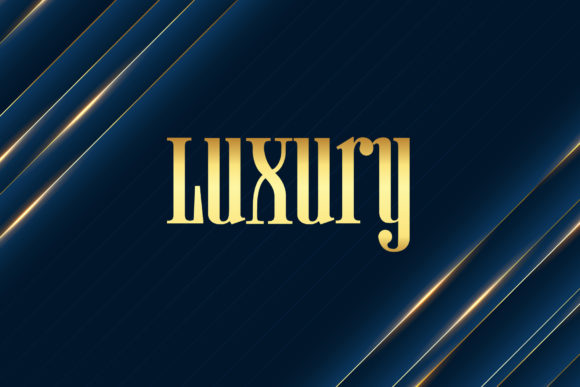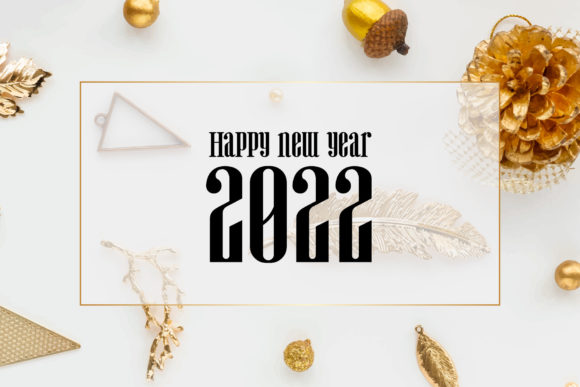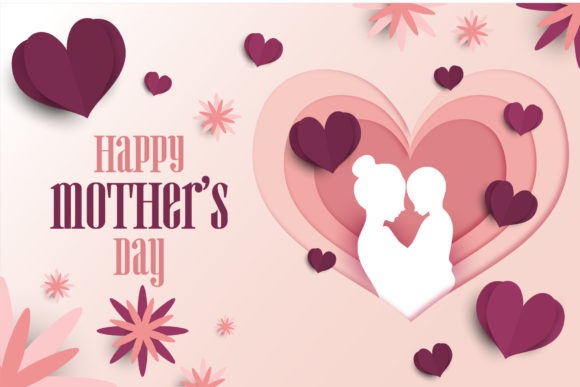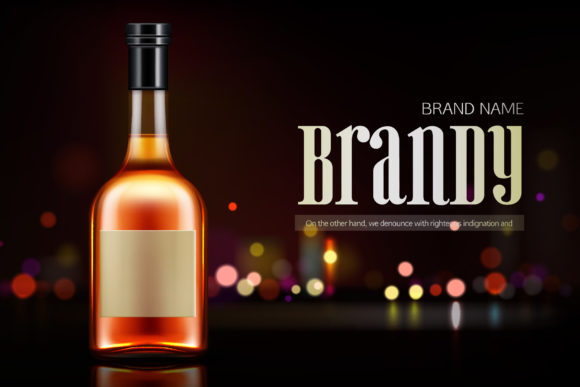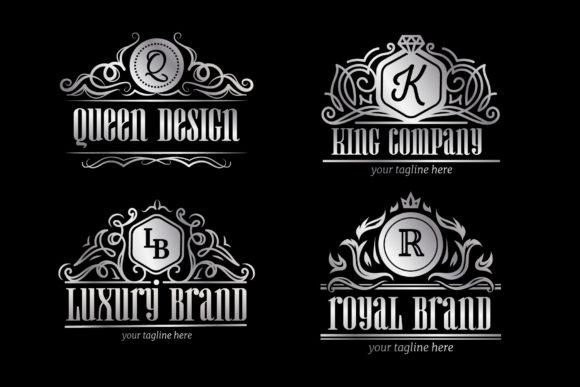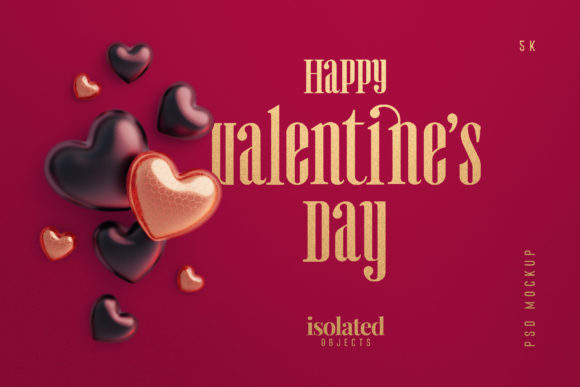
Introducing Giftbox Font: Elevate Your Designs with Elegance and Sophistication
In the world of typography, a font can make or break a design. For those seeking to add a touch of luxury and sophistication to their creative projects, look no further than the Giftbox Font. This elegant, distinct, and stylish serif font is perfect for designers and crafters looking to elevate their work with a sense of refinement and poise.
What is Giftbox Font?
Giftbox Font is a meticulously crafted serif typeface that exudes elegance and luxury. Its unique design elements make it an ideal choice for a wide range of applications, from logos and titles to fashion branding and editorial design. With Giftbox Font, you can add a touch of sophistication to your creative projects and make them stand out from the crowd.
Key Features of Giftbox Font
- Elegant and Distinctive Design: Giftbox Font boasts a unique and stylish design that is sure to turn heads. Its serif elements add a touch of sophistication and luxury to any design.
- Versatile: This font is perfect for a wide range of applications, including elegant logos, book and movie titles, fashion branding, magazines, clothing, lettering, and quotes.
- Highly Readable: Despite its elegant design, Giftbox Font remains highly readable, making it perfect for body text and captions.
Use Cases for Giftbox Font
Giftbox Font is an incredibly versatile typeface that can be used in a variety of creative projects. Here are some use cases to get you started:
- Elegant Logos: Create a luxurious logo for your brand with Giftbox Font. Its elegant design elements make it perfect for high-end brands and businesses.
- Book and Movie Titles: Add a touch of sophistication to your book or movie titles with Giftbox Font. Its serif elements make it perfect for titles and headings.
- Fashion Branding: Giftbox Font is perfect for fashion brands looking to add a touch of luxury and sophistication to their branding.
- Magazines and Editorials: Use Giftbox Font to add a touch of elegance to your magazine or editorial design.
- Clothing and Apparel: Create stylish and sophisticated clothing and apparel with Giftbox Font.
- Lettering and Quotes: Use Giftbox Font to create beautiful lettering and quotes that are sure to impress.
Why Choose Giftbox Font?
With so many fonts available, why choose Giftbox Font? Here are just a few reasons why Giftbox Font stands out from the crowd:
- Unique Design: Giftbox Font boasts a unique and stylish design that is sure to turn heads.
- High-Quality: Giftbox Font is a high-quality typeface that is designed to deliver exceptional results.
- Elegant and Sophisticated: Giftbox Font exudes elegance and sophistication, making it perfect for luxury brands and high-end designs.
In conclusion, Giftbox Font is an exceptional serif typeface that is perfect for designers and crafters looking to add a touch of luxury and sophistication to their creative projects. With its elegant design, versatility, and high readability, Giftbox Font is an excellent choice for a wide range of applications. Whether you’re creating an elegant logo, book or movie title, fashion brand, magazine, or clothing, Giftbox Font is sure to elevate your design and make it stand out from the crowd.